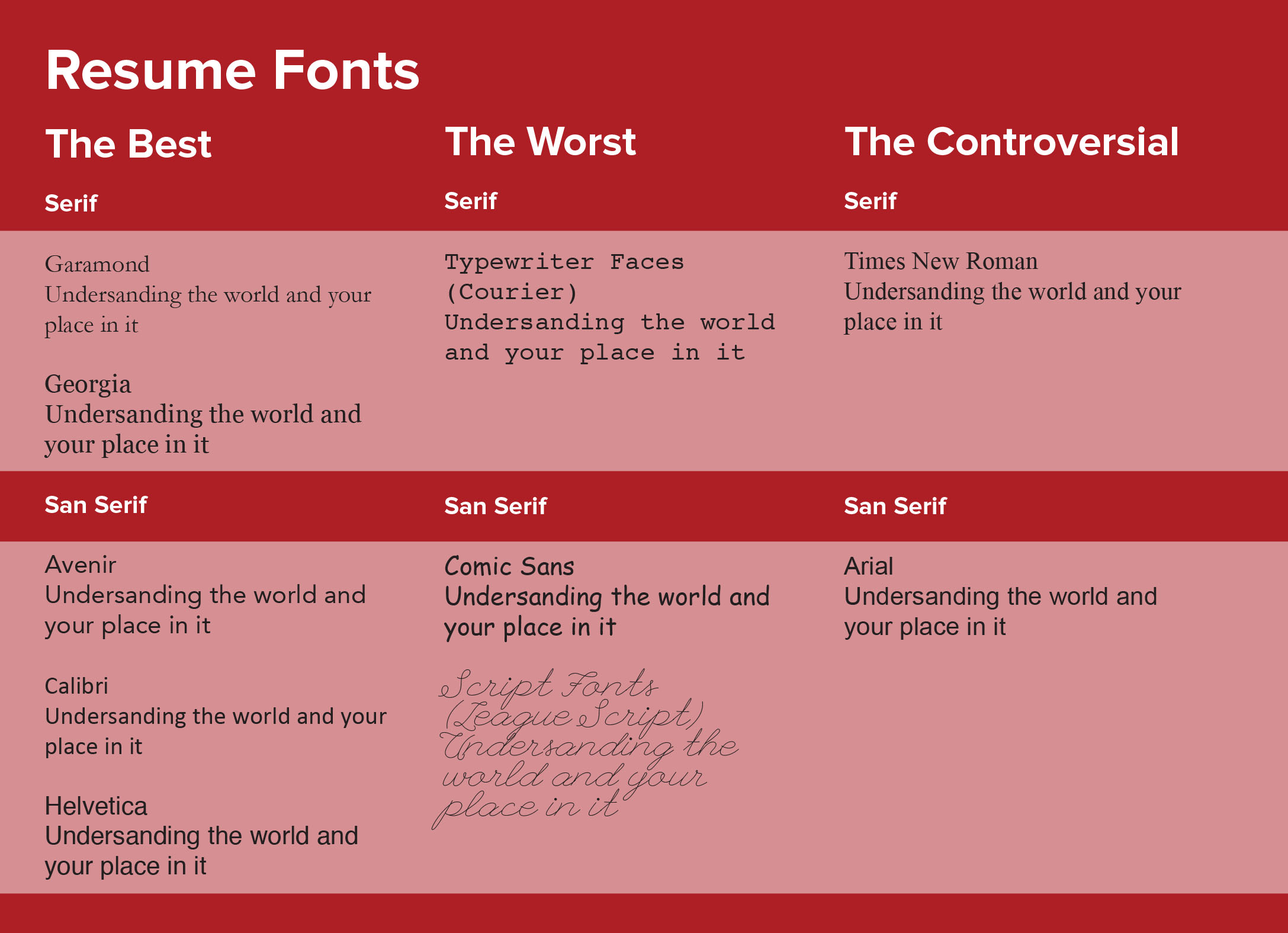
It works well for both your resume and cover letter. Here is the list of the 10 best fonts for resumes, including a brief description of each one to help you choose a font:
Best Most Common Font Used For Resumes With New Ideas, It is the font used on the banner photo above. Never go below size 10.5 as it is difficult to read, and always make use of italics and bold to best utilize your font.
Times new roman and similar serif fonts are seen as traditional and classic. This is one of the best fonts to use on cvs, resumes, cover letters and so on. Times new roman is one of the most common resume fonts used, followed along by the standard microsoft word document font size of 11 pt. Standard font style for resume and how to use fonts in your resume.
It has a bit more polish and maintains a high degree of readability, both of which can be important on a resume. For professionals looking to create an impressive resume or cv, onion pro is a solid choice. Helvetica is generally seen as more elegant and modern. Times new roman and similar serif fonts are seen as traditional and classic.
Serif fonts that you can use on a resume include: Readily usable on most operating systems and office programs, book antiqua is one of the best serif font choices for a resume. Georgia is our second serif font on the list, and many large names use it today; It was once the default font of microsoft word. What Font Should I Use For My Resume?.
It works well for both your resume and cover letter. Here is the list of the 10 best fonts for resumes, including a brief description of each one to help you choose a font: The most common fonts used on resumes are times new roman, cambria, georgia, and calibri. Calibri is the default font used for microsoft word, and for good reason. Łukasz Dziedzic, a Polish typeface designer, designed the Lato font for.
Here is the list of the 10 best fonts for resumes, including a brief description of each one to help you choose a font: Calibri is the default font used for microsoft word, and for good reason. Standard font style for resume and how to use fonts in your resume. Garamond times new roman is probably the most commonly chosen fonts for resumes—the very reason you should avoid it,. Best Font for Resume What Font Should a Resume Be?.
There are some basic rules for how to use resume fonts: Standard font style for resume and how to use fonts in your resume. The georgia font is one of the most professional fonts for resumes or cover letters. Acceptable resume fonts include calibri, cambria, garamond, helvetica, georgia, tahoma, verdana, trebuchet ms, and book antiqua. The Best Fonts For Resumes Top 12+ & Fonts To Avoid.
It’s not as formal as other kinds of fonts, but it’s just as easy to read. It is the new york times font as well as amazon’s. Readily usable on most operating systems and office programs, book antiqua is one of the best serif font choices for a resume. There are no definitive rules for what fonts should be used in a resume to apply for specific jobs. 20 best and worst fonts to use on your resume Learn.
If, for example, you’re applying for a financial analyst position, ats may be programmed to search for the keyword ‘financial reporting.’. Bad resume fonts include times new roman, courier, comic sans, papyrus, impact, futura, lucida console, and arial. It’s not as formal as other kinds of fonts, but it’s just as easy to read. The best resume fonts are the ones that come with no bells, and whistles. Best Fonts for Resumes That Truly Stand Out Popular serif fonts.
Onion pro is one such font. There are some basic rules for how to use resume fonts: This is a humanist san serif font that is professional and easy to read. For professionals looking to create an impressive resume or cv, onion pro is a solid choice. Choosing a Font for Your Resume Palladian Career Resources.
Most people often ask, “what’s the best font size to use on your resume?” well. The most common fonts used on resumes are times new roman, cambria, georgia, and calibri. You should use this font for headings only and not in the body text. Perhaps one of the most popular and classic fonts that gets used on resumes—and college essays. 20 of the best and worst fonts to use on your resume Resume design.
It is referred to as a warm and soft font that is the most popular among all fonts. It was once the default font of microsoft word. Here are a few other popular résumé font choices that are clear, legible and scalable: Unlike some serif designs, it doesn’t seem cramped, which is a boon. RESUME FORMAT 2018 20 Free to download word templates.
A Popular And Safe Choice For A Modern Sans Serif Font, Arial Is Applauded For Clean Lines And Good Legibility.
The best resume fonts are the ones that come with no bells, and whistles. Another excellent option for fans of serif fonts, garamond feels like a modernized version of a traditional design. It can sometimes be hard to describe why a font is great, but we like to think that helvetica stands out as one of the best, if not ‘the best. But there are guidelines that can help you choose the best font for a resume and job application.